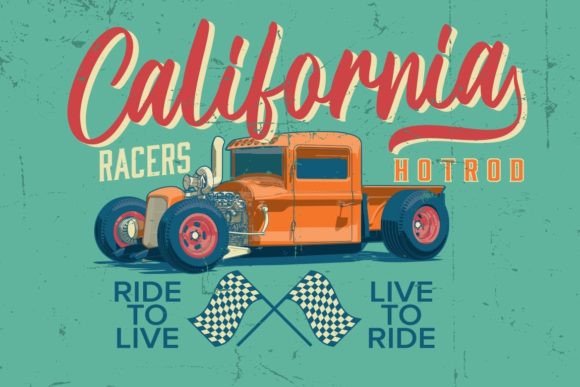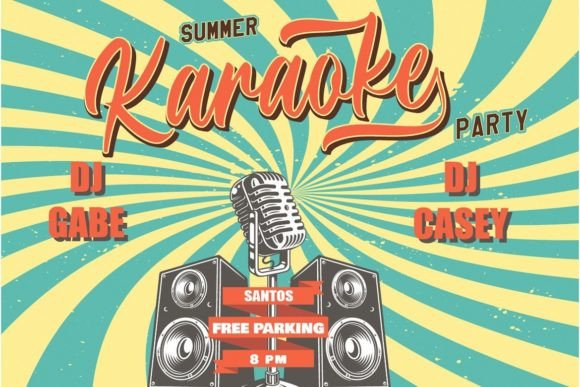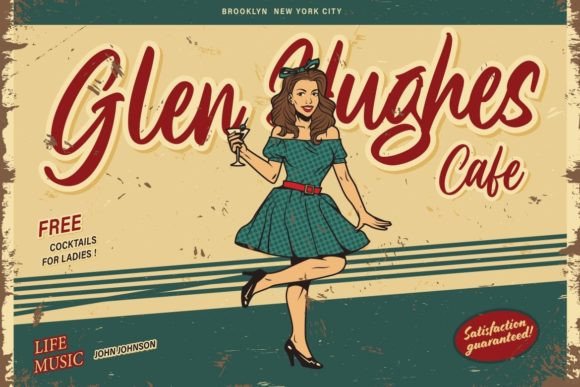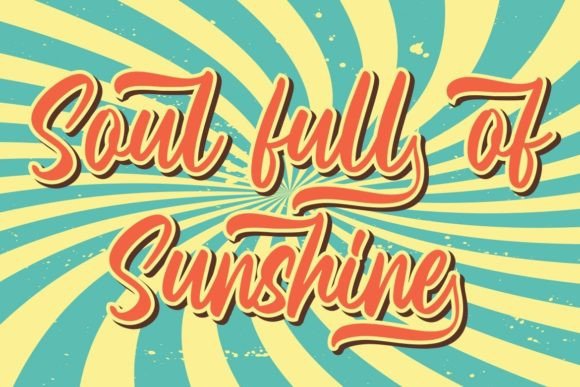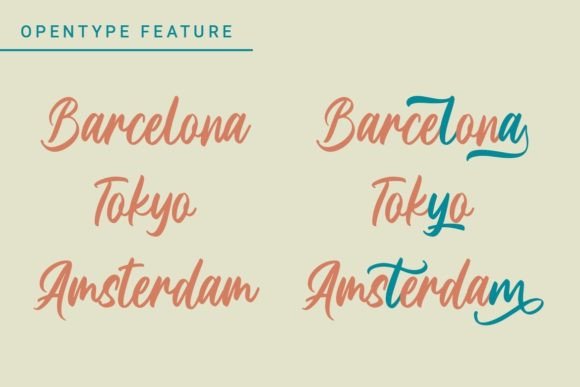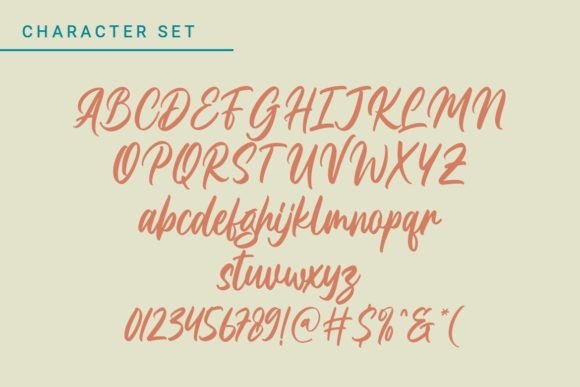
Introduction to Rogue Font
Remember that moment when you stumbled upon the perfect design element for your creative project? The one that took it from good to great? For many designers, that moment comes when they find the ideal font to match their vision. For those who crave a touch of nostalgia, there’s one design resource that stands out: the Rogue Font.
With its vintage aesthetic and stylish script, the Rogue Font is a game-changer for designers seeking to add a unique flair to their work. Whether you’re working on a free download or a high-quality design, this font is sure to elevate your project. One of its standout features is its transparent background, making it a versatile choice for any design scenario.
Key Features of Rogue Font
- High-quality, professional font design for creative projects, perfect as a design resource.
- Comes with a transparent background, ideal for use on any background color or image.
- Unique, modern design that adds a touch of elegance to any creative project, making it stand out from the crowd.
Honest Review: Rogue Font
I recently stumbled upon the Rogue Font, and I must say it’s been a game-changer for my creative projects. As a designer, I’m always on the lookout for unique and high-quality design resources that can elevate my work.
- ✨ Versatility: The Rogue Font is incredibly versatile, making it perfect for a wide range of creative projects, from logos to digital art.
- ✨ High-quality design: The font is beautifully crafted, with intricate details that make it stand out from the crowd.
Overall, I’m thoroughly impressed with the Rogue Font. Its unique design and high-quality craftsmanship make it an excellent addition to any design resource collection. Just be aware of the potential limitations, and you’ll be golden!
Rogue Font
Common Use Cases for Rogue Font
Rogue Font is a versatile font that can be used in a variety of creative projects, including graphic design, digital art, and even web design. Its unique design makes it perfect for adding a touch of elegance to your design.
Is the Rogue Font a high-quality font, suitable for professional design projects?
Yes, the Rogue Font is a high-quality design resource, carefully crafted to provide a unique and stylish look for your creative project. With its clean and modern design, it’s perfect for use in logos, typography, and other design elements where a sophisticated look is required.